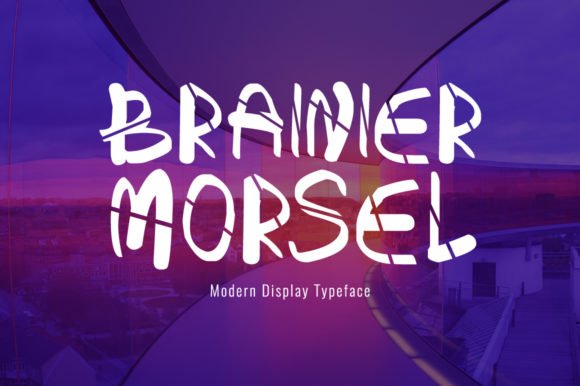
Unleash Your Creativity with the Brainier Morsel Font
Have you ever sat down with a blank sheet of paper, staring at the empty space, and suddenly felt an overwhelming urge to create something amazing? The spark of inspiration can strike at any moment, and when it does, you want to be ready. For designers, this moment is what drives us to push the boundaries of creativity and bring new ideas to life. And that’s exactly where the Brainier Morsel Font comes in – a modern display font designed to take your designs to the next level.
| 👤 Author | Shattered Notion |
The Brainier Morsel Font is perfect for a wide range of applications, from stationery and logos to t-shirts and website headers. Its unique style and versatility make it an invaluable addition to any designer’s toolkit. With the Brainier Morsel Font, you’ll have the freedom to experiment with bold, eye-catching typography that’s sure to leave a lasting impression.
- Unique Characteristics: The font’s distinctive blend of vintage and modern elements, combined with its highly legible and readable design, makes it an ideal choice for a wide range of applications, including book titles, logos, and advertising materials.
Brainier Morsel Font Review
Overall, I’m quite pleased with the Brainier Morsel Font. It has a unique, quirky feel that’s perfect for adding a touch of whimsy to your designs.
Here are some things that work well: ✨ High contrast between the thick and thin lines, which makes it easy to read. ✨ The font is highly customizable, with a wide range of style options available. ✨ It’s also fully legible, even at small font sizes.
However, there are a few limitations: ⚠️ The font can feel a bit overwhelming if used in large blocks of text. ⚠️ Some characters, such as the ‘i’ and ‘l’, can be a bit difficult to distinguish from each other. ⚠️ The font doesn’t support a lot of special characters, which can make it difficult to use in certain contexts.
Overall, I think the Brainier Morsel Font is a great choice for designers who want to add a bit of personality to their projects. With a little care and attention, it can be a real showstopper.
- Perfect for adding a touch of whimsy to your designs
- Fully legible, even at small font sizes
- Can feel overwhelming if used in large blocks of text
- Some characters can be difficult to distinguish
- Doesn’t support a lot of special characters
The Brainier Morsel Font is ideal for creating unique and playful designs, such as:
- Children’s book covers and illustrations.
Remember to experiment with different font sizes, colors, and styles to get the most out of the Brainier Morsel Font.